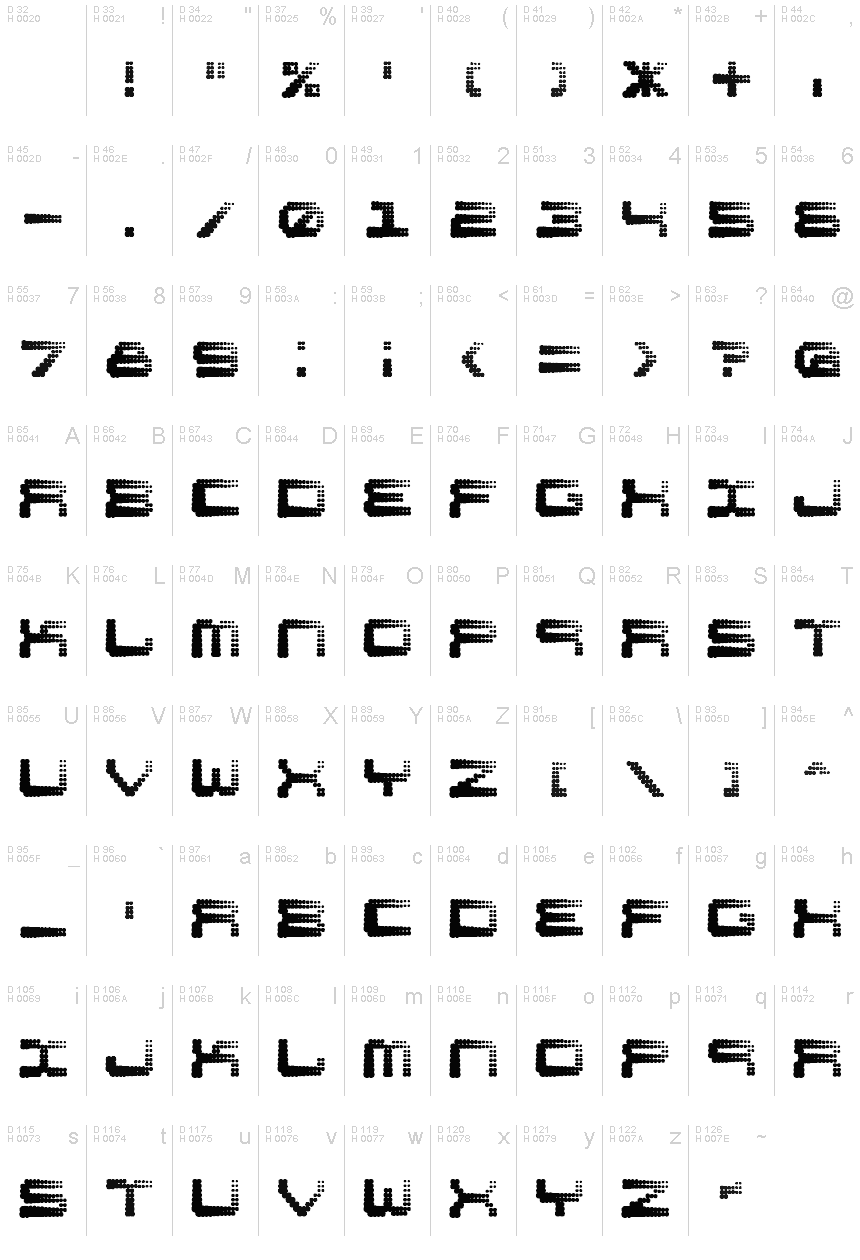
Shift
Shift, designed by Koen Hachmang, is a display font that commands attention with its techno style and semi-bold weight. This typeface boasts an extra-expanded width that stretches across the visual plane, creating a striking presence that's hard to overlook. The aesthetic appeal of Shift lies in its ability to fuse contemporary flair with digital precision, making it an excellent choice for projects that demand a futuristic or cutting-edge vibe.
The character shapes of Shift are bold and assertive, with clean lines and geometric forms that exude modernity. Its uniformity in design allows for high legibility despite its distinctive appearance. Whether it's used for headlines, logos, or promotional materials, Shift has the versatility to elevate the design of any creative project seeking a robust and forward-thinking typographic approach.
Shift is not just another techno font; it's a statement piece that can transform words into visual anchors within any layout. With its unique style and broad applicability, this font is poised to become a go-to asset for designers aiming to make an impact in the digital age.
The character shapes of Shift are bold and assertive, with clean lines and geometric forms that exude modernity. Its uniformity in design allows for high legibility despite its distinctive appearance. Whether it's used for headlines, logos, or promotional materials, Shift has the versatility to elevate the design of any creative project seeking a robust and forward-thinking typographic approach.
Shift is not just another techno font; it's a statement piece that can transform words into visual anchors within any layout. With its unique style and broad applicability, this font is poised to become a go-to asset for designers aiming to make an impact in the digital age.